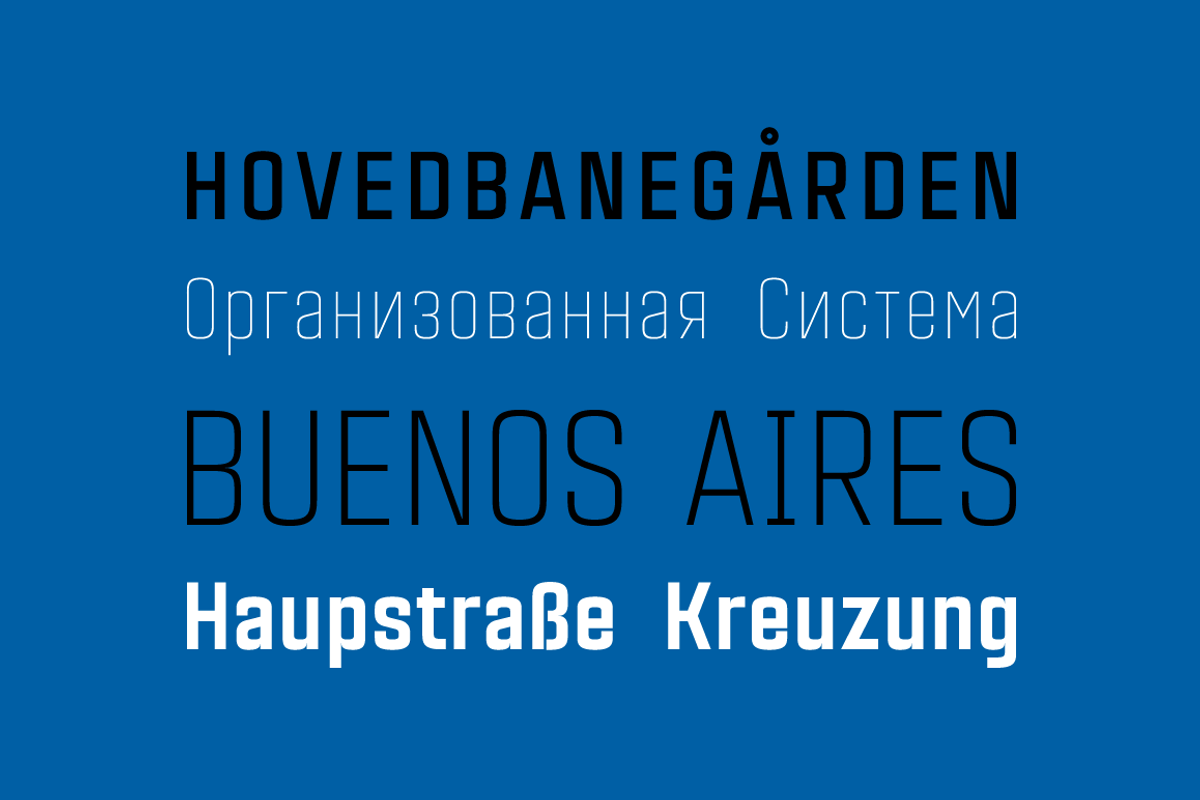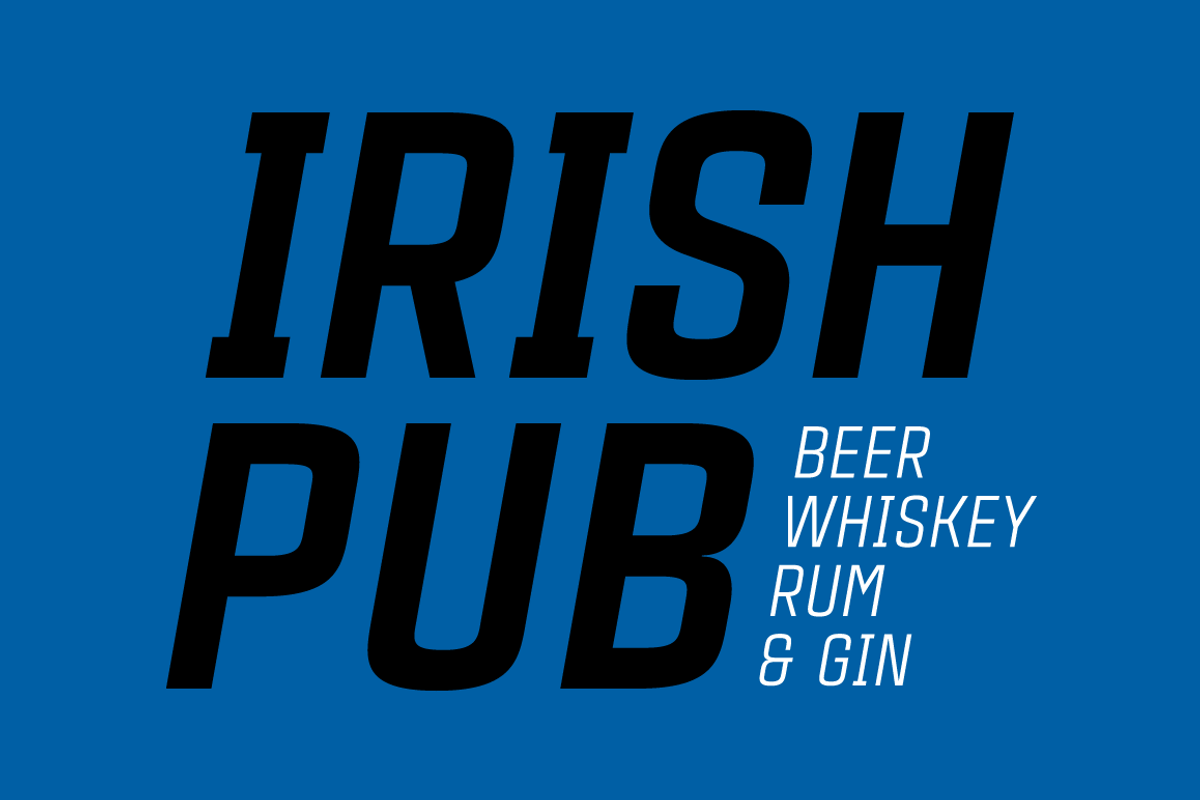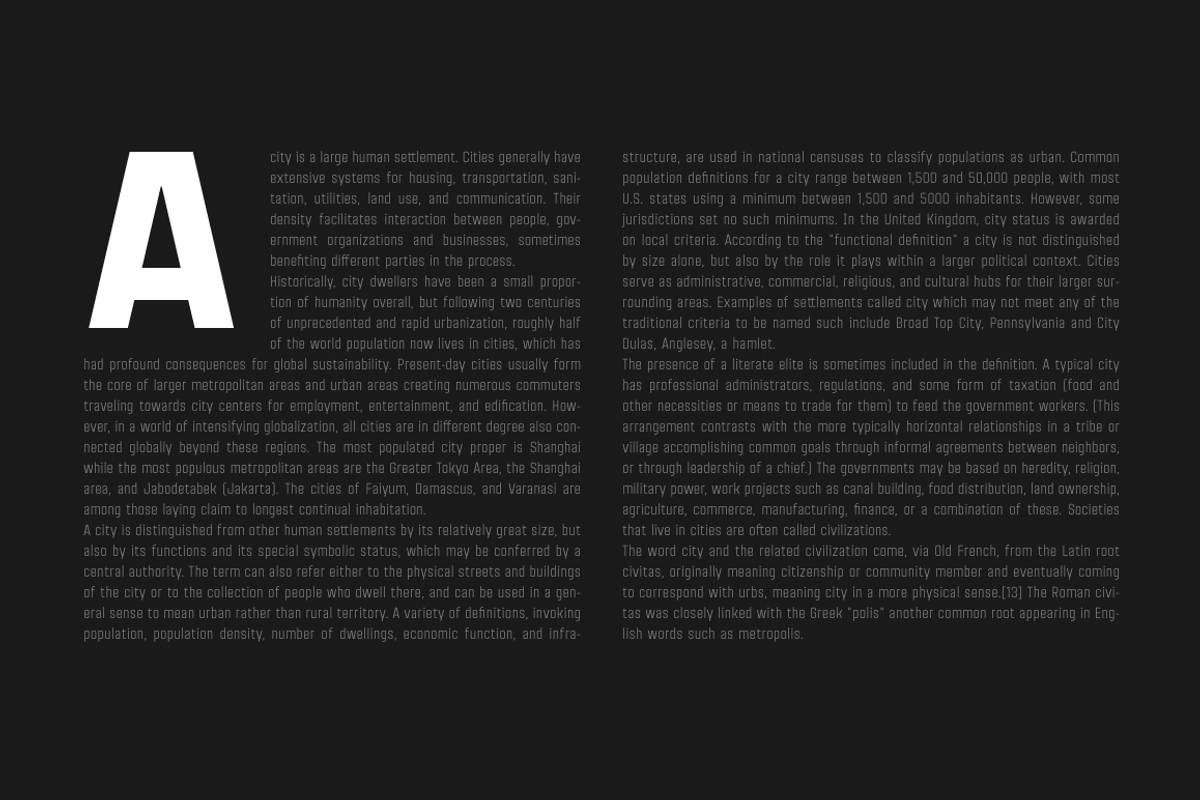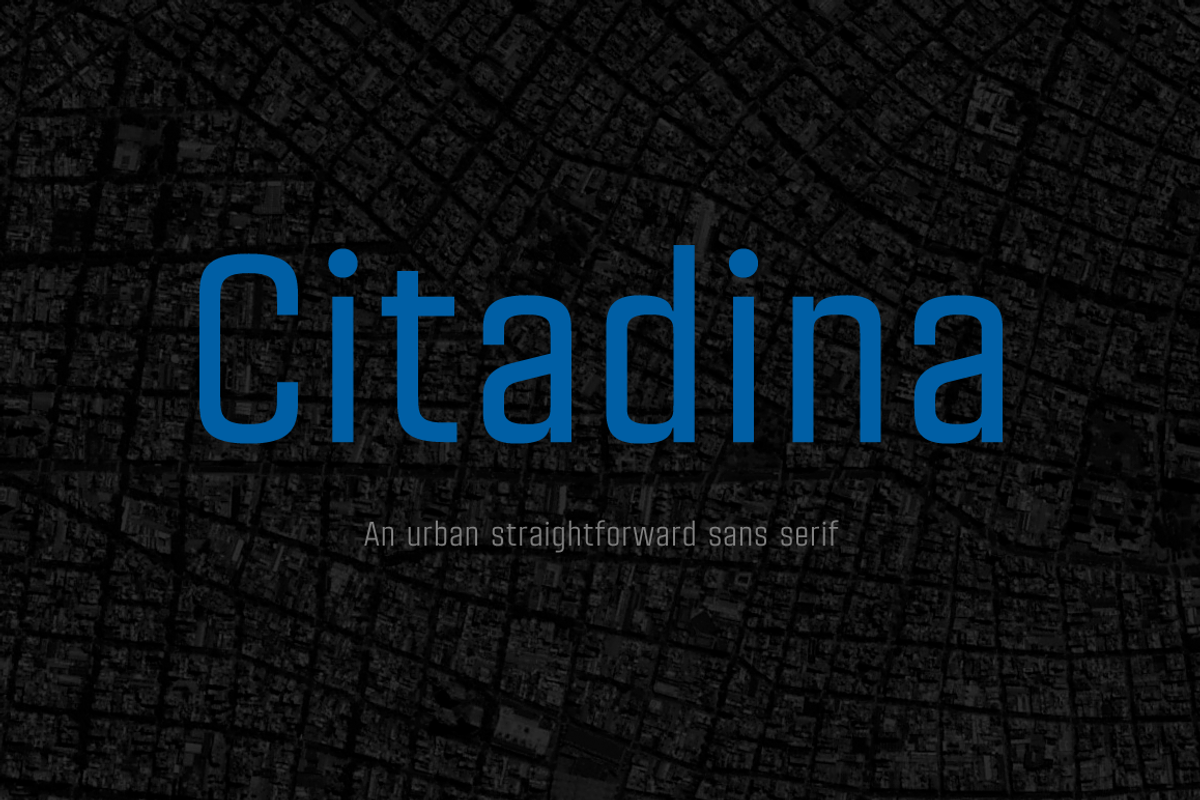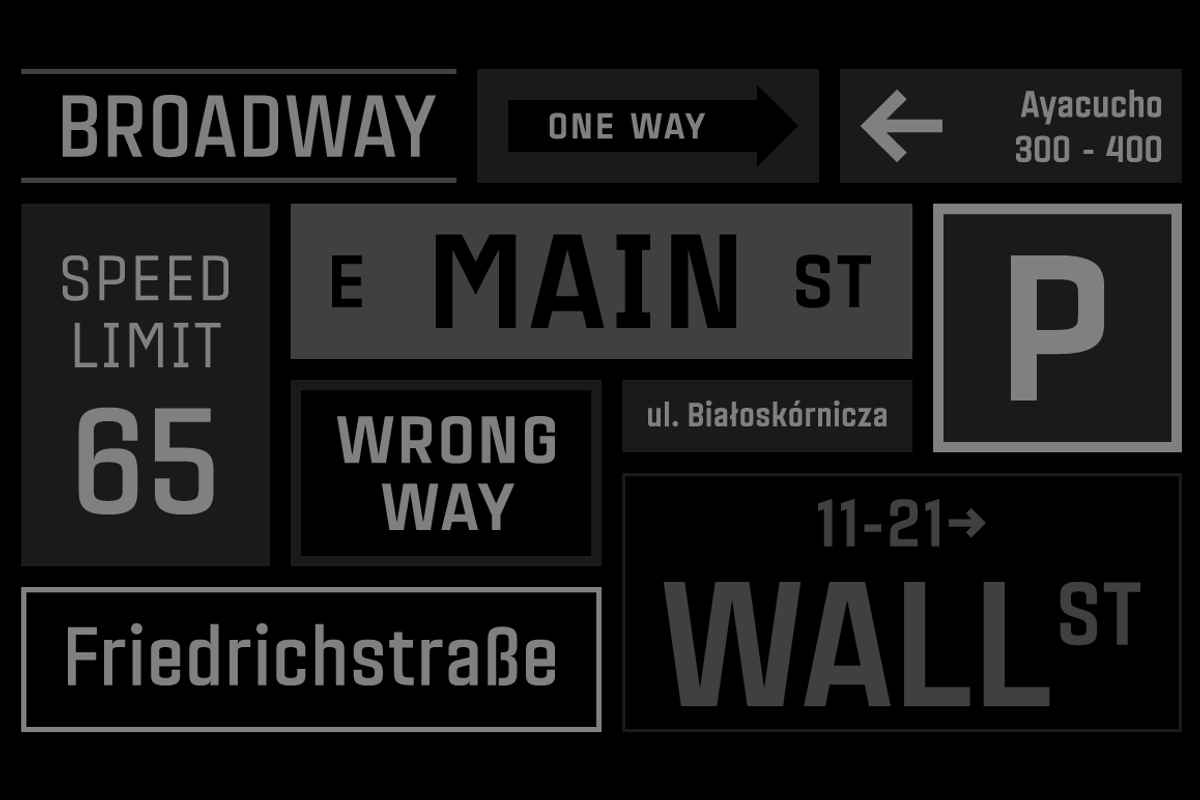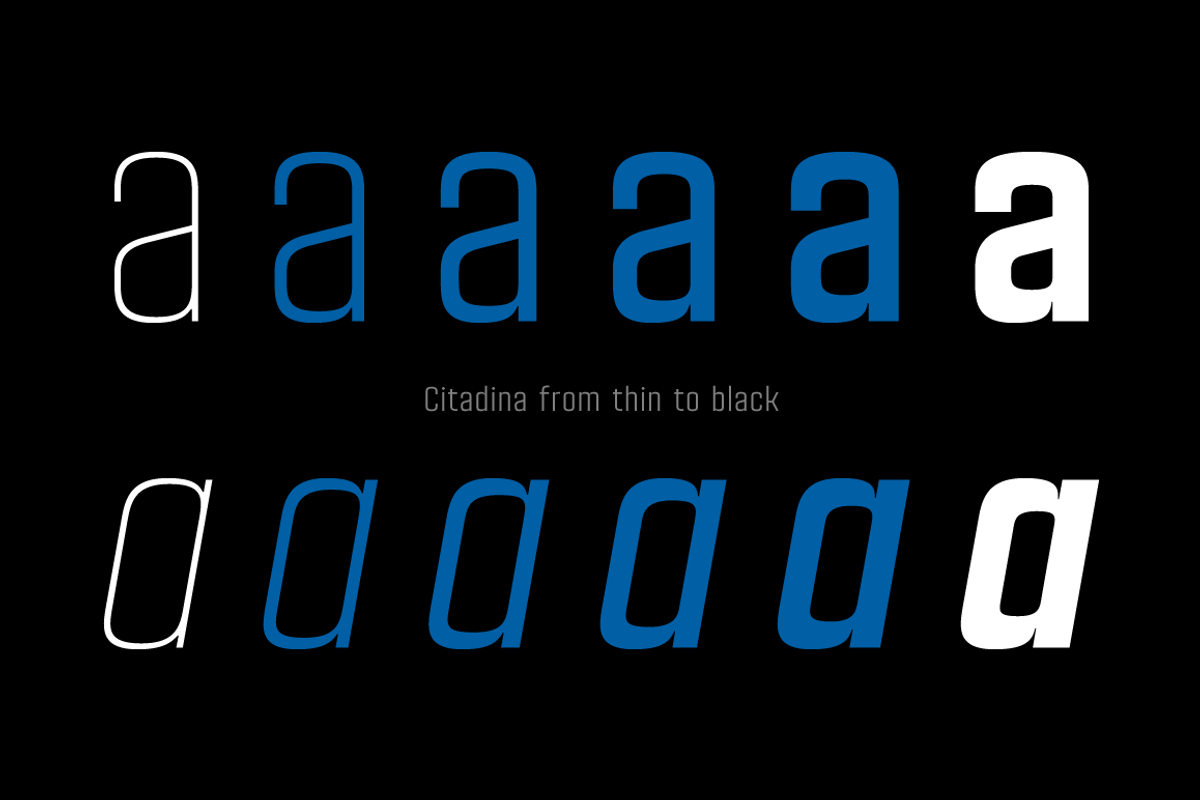
Citadina Font Family
Designer: Pablo Balcells
Design date: 2016
Citadina font family has been designed for Graviton Font Foundry by Pablo Balcells in 2016. It is a sans serif typeface with a geometrical, mechanic, neutral appearence and a slightly condensed design which makes it particularly effective for space economizing. It has been conceived to be most suitable for short and middle length text blocks, as well as on all sized headlines.
Citadina consists of 12 styles. Each containing small caps and glyph coverage for several languages.